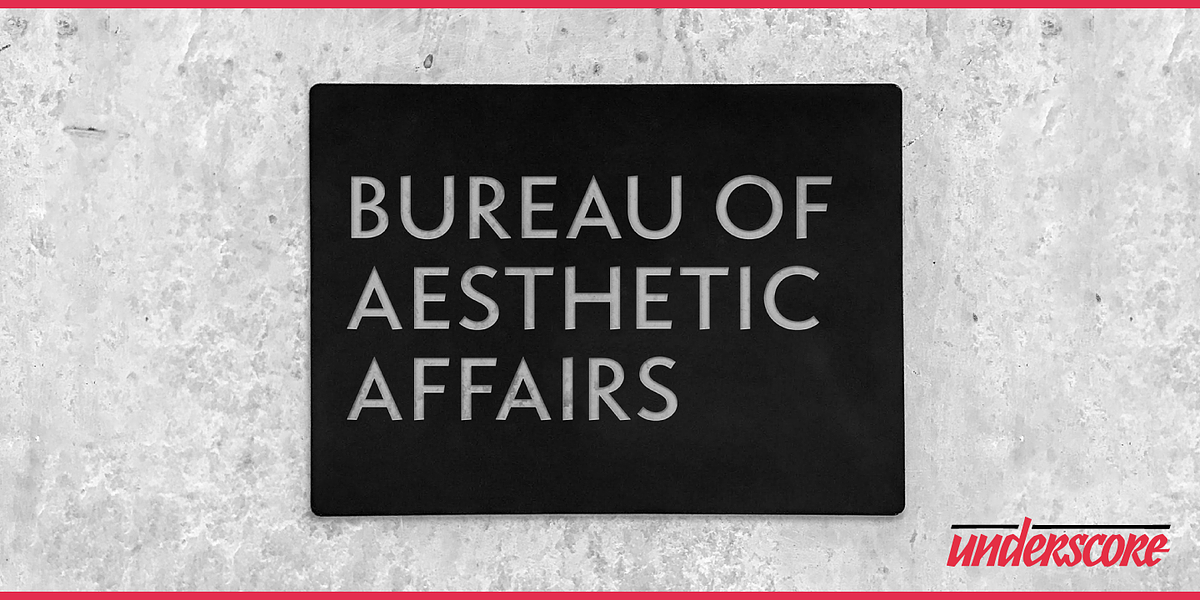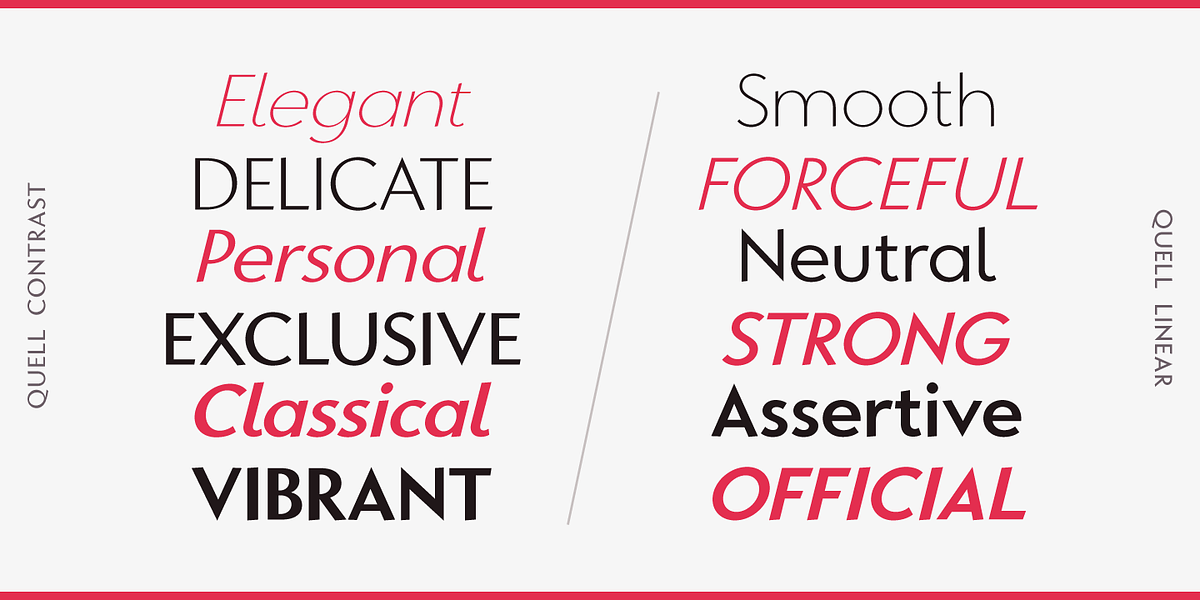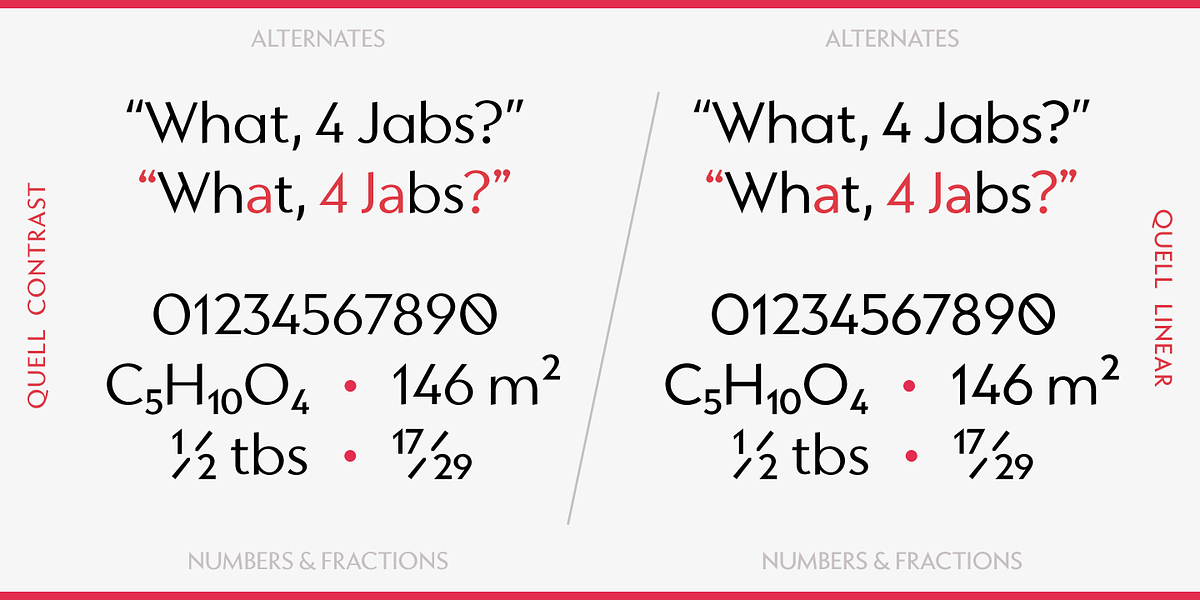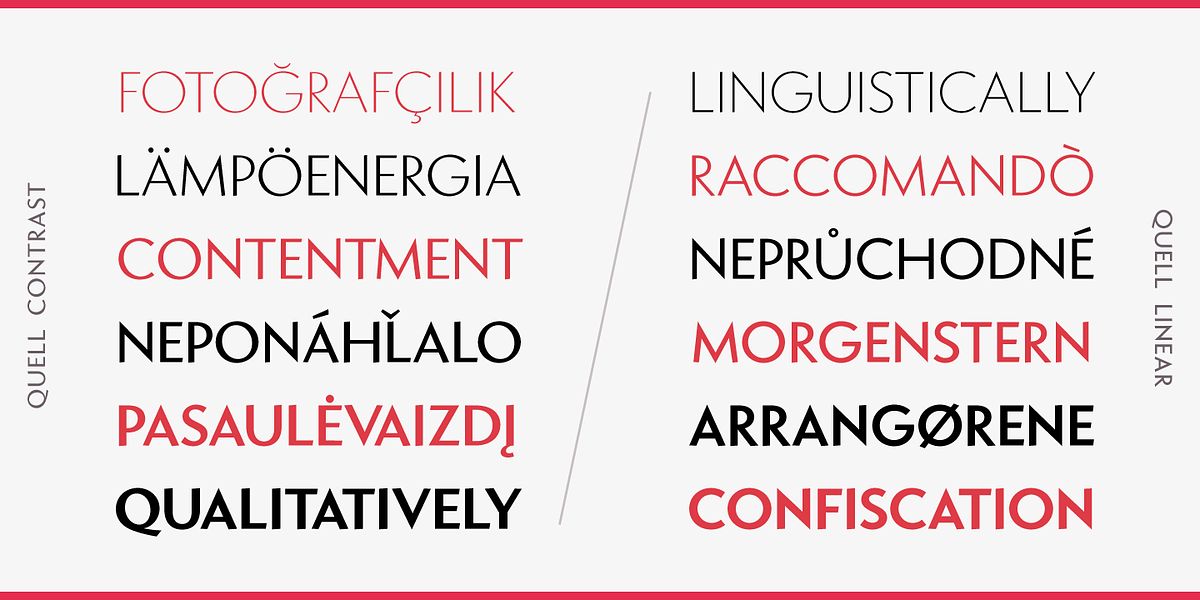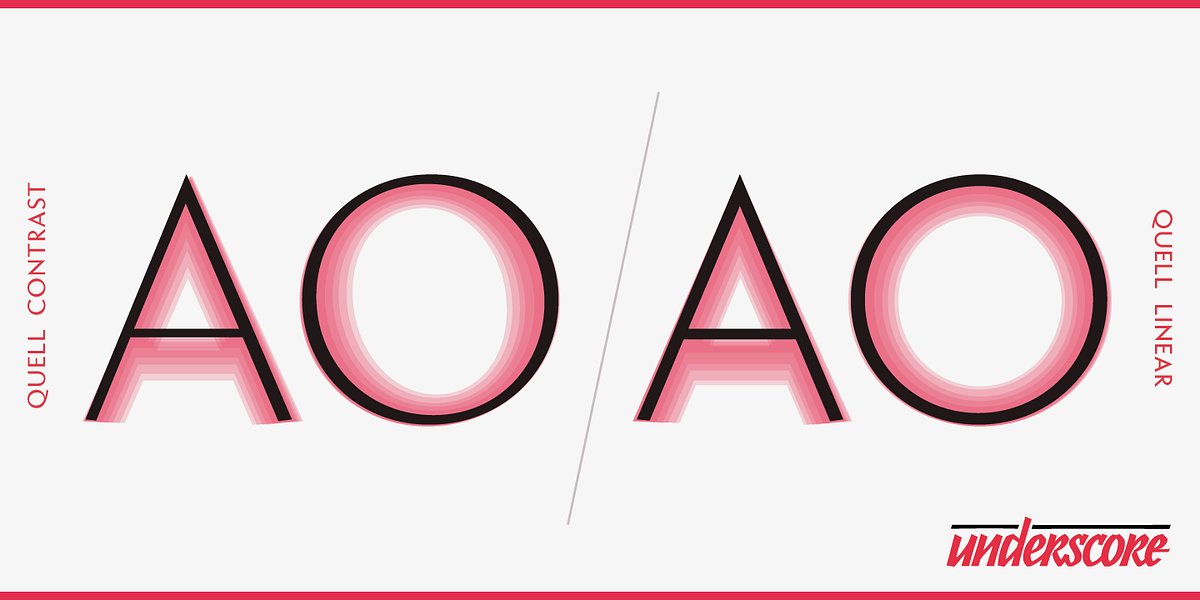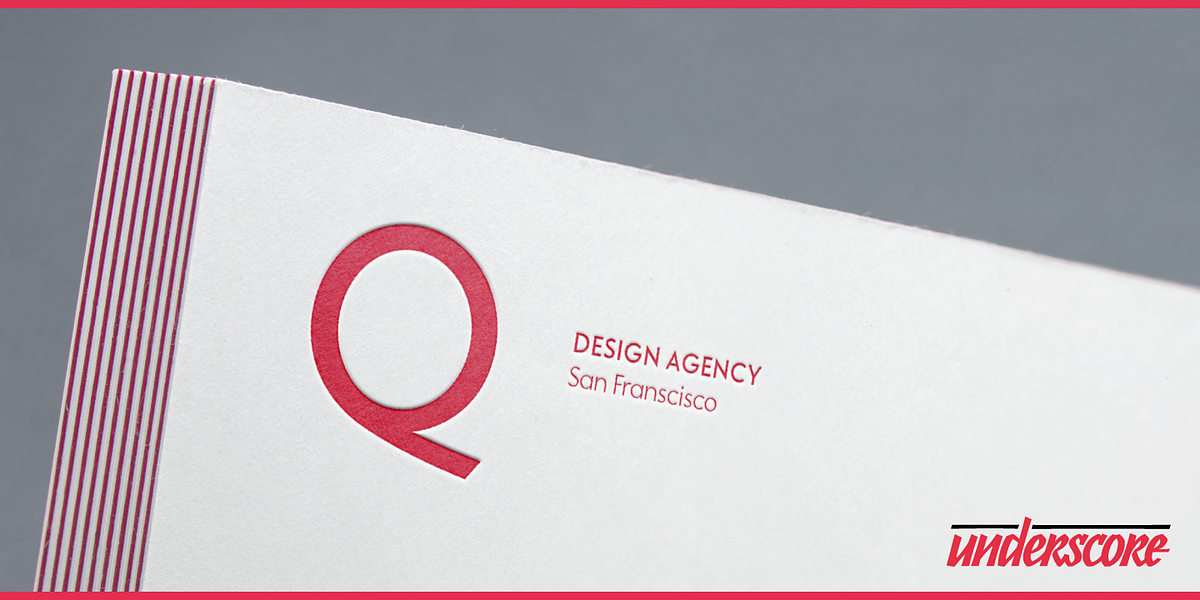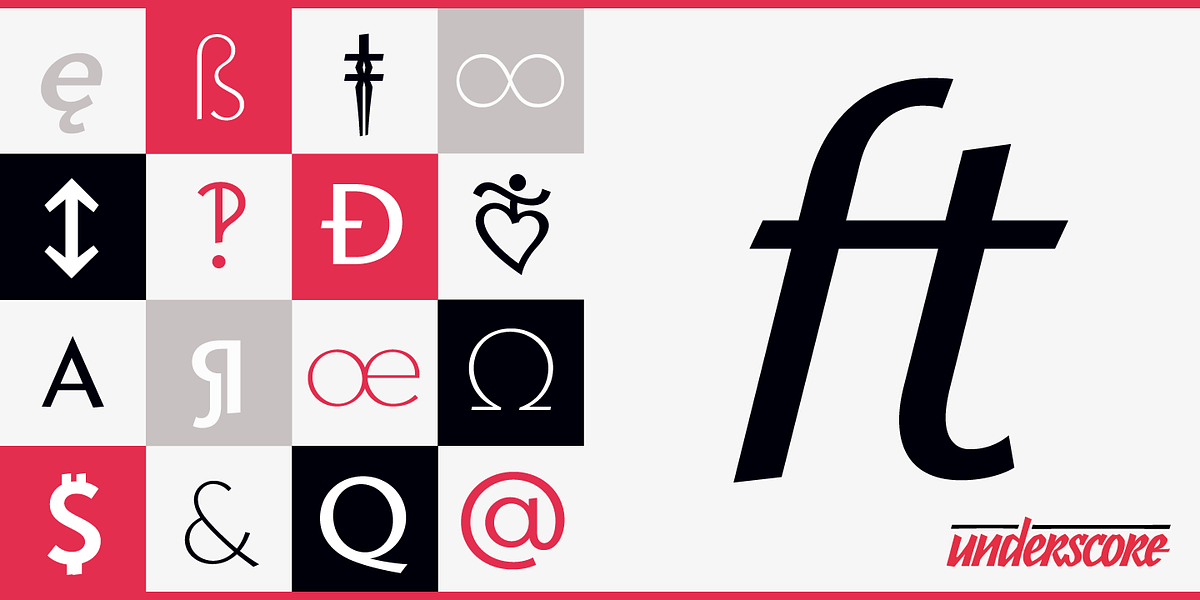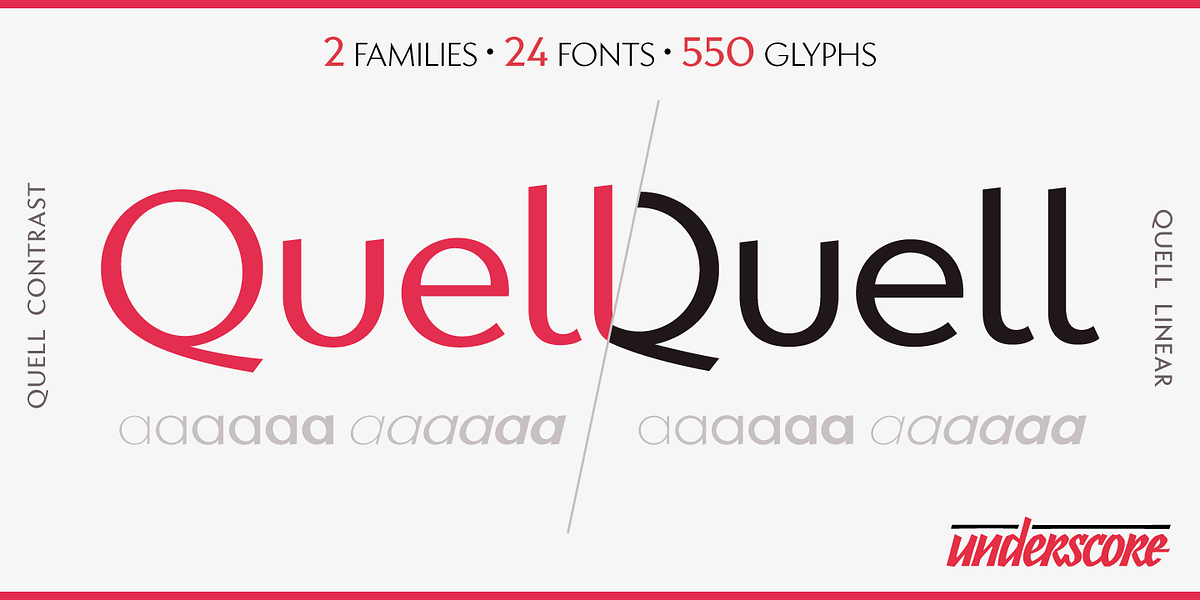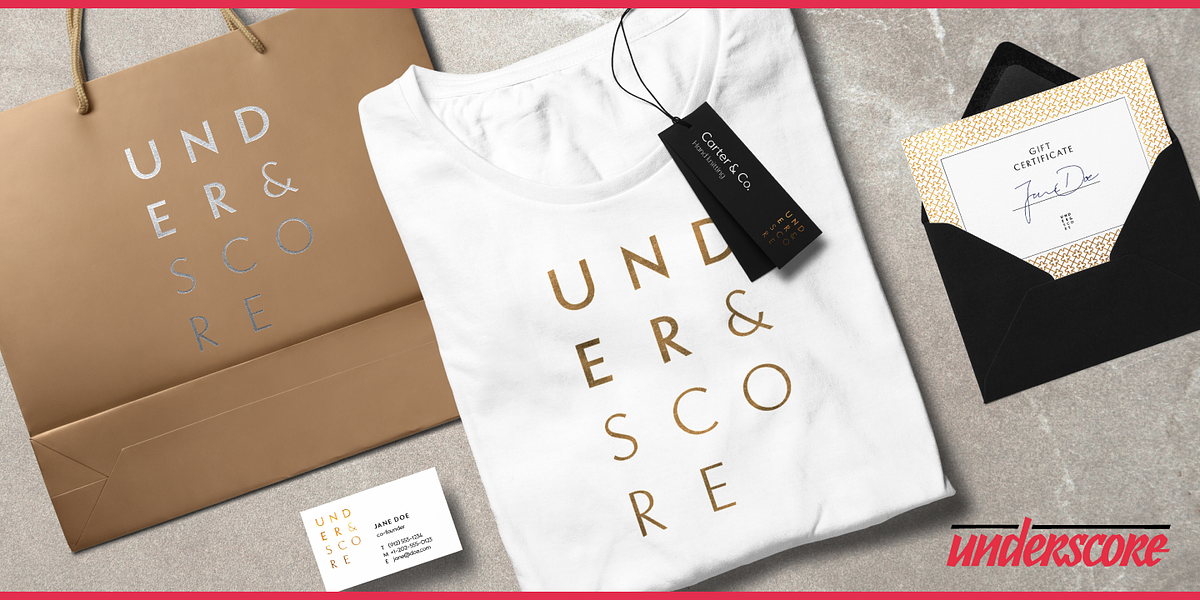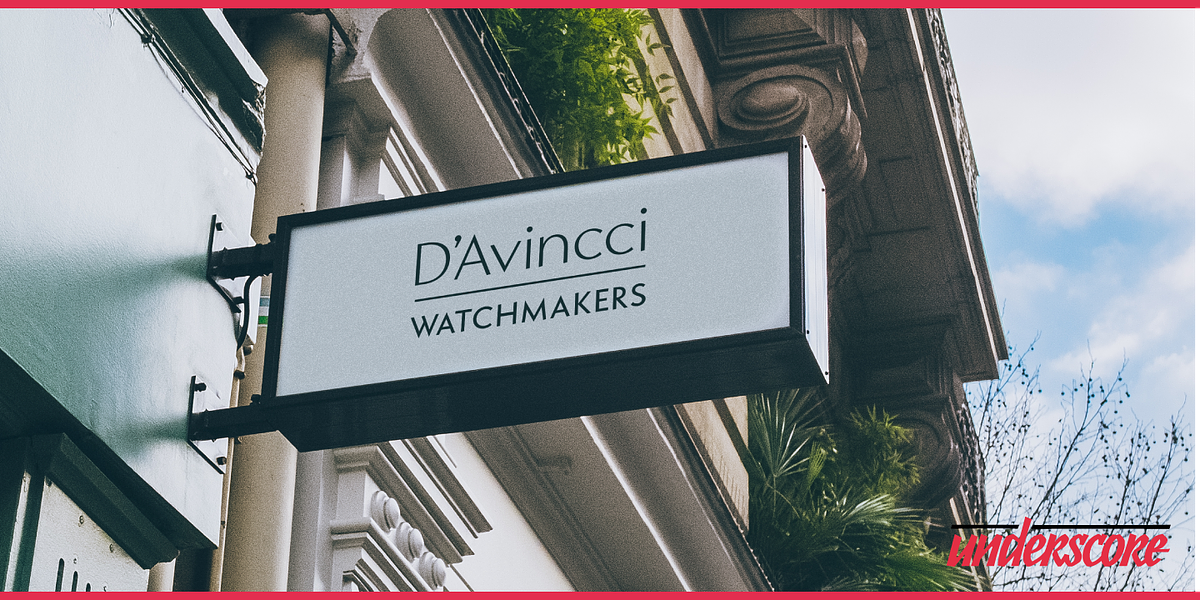
Quell
Quell is a geometric sans-serif font that incorporates subtle calligraphic influences through modulated stroke widths and oblique line terminations. This unique blend allows for typographic versatility, ranging from a solid and compelling voice in its linear form to an elegant and vibrant tone in its modulated styles. Quell is well-suited for display settings like headlines, wayfinding, and branding. While it can be used for short paragraph typesetting, it's not recommended for extensive body text.